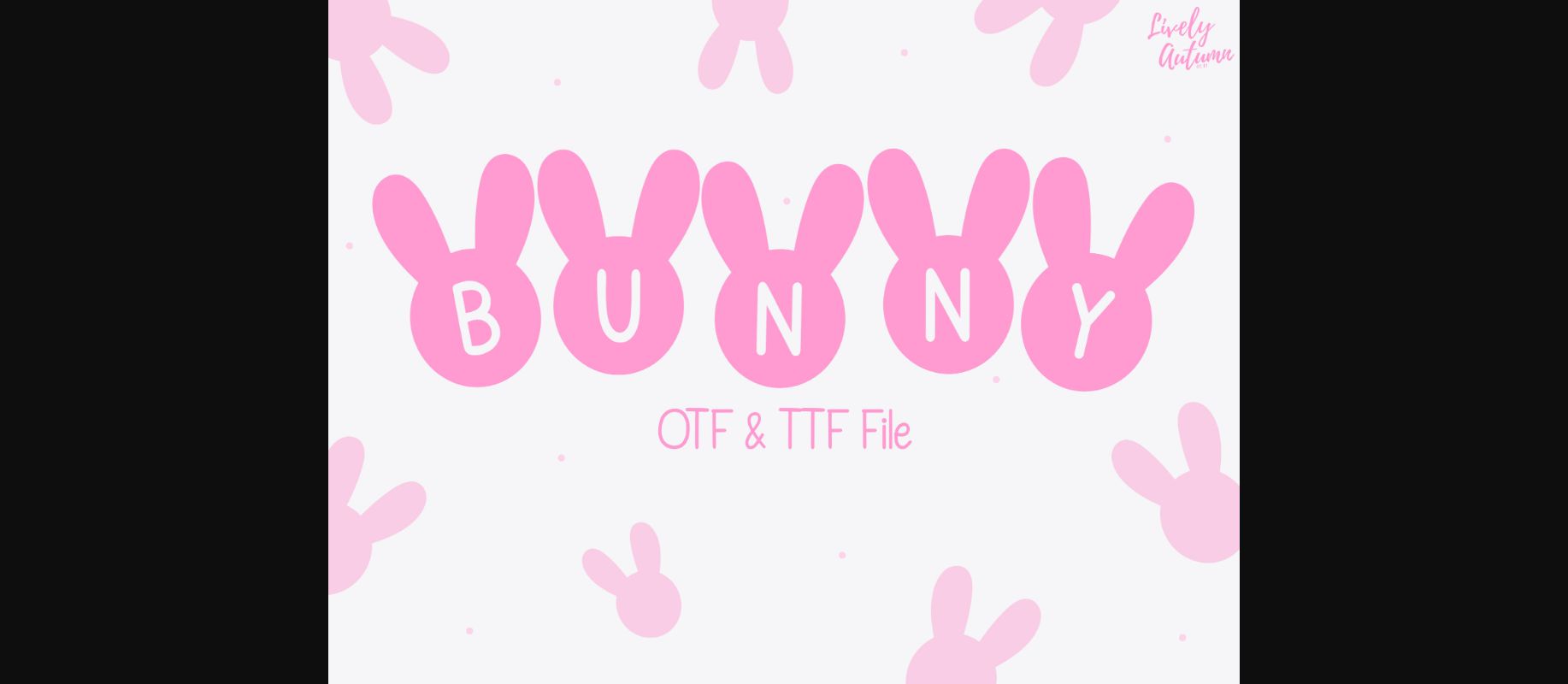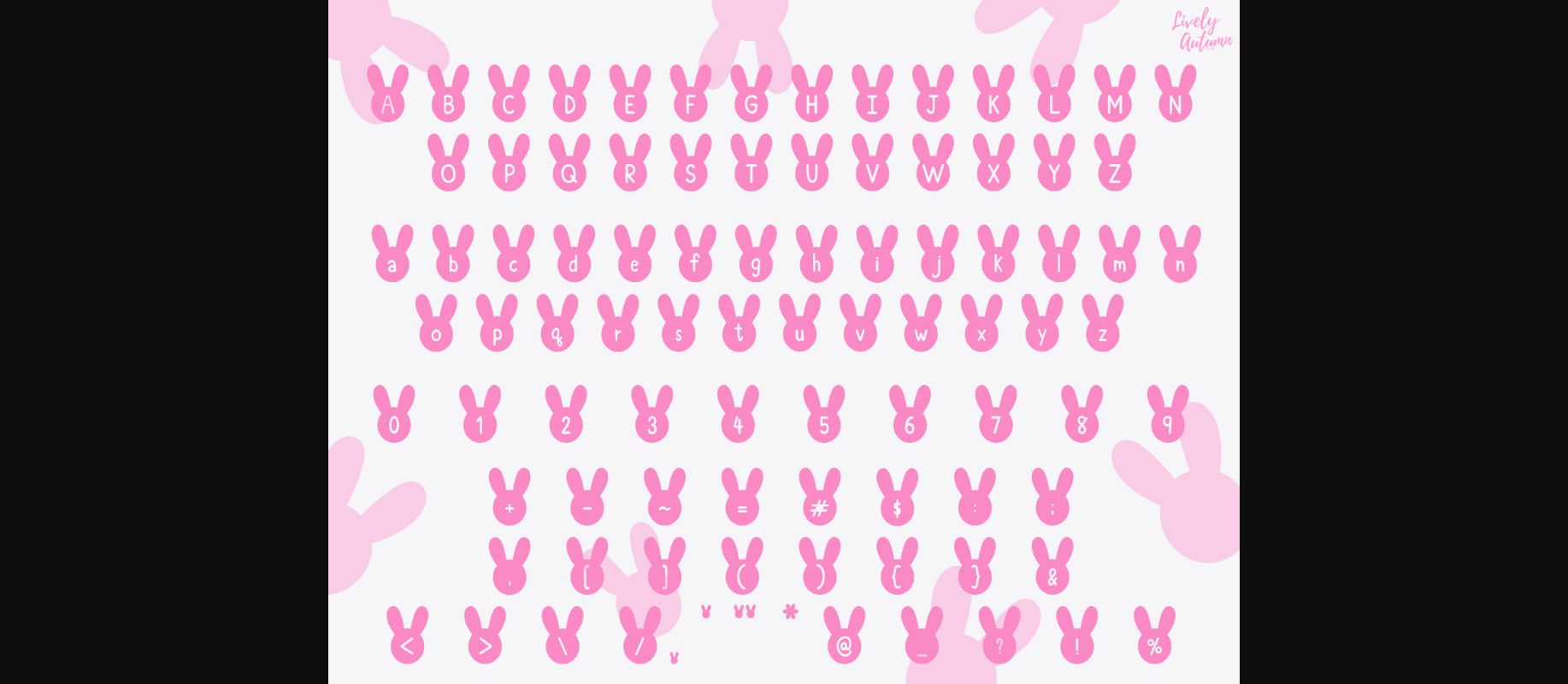
Bunny Font
About Bunny Font
Bunny Font is a fancy decorative font. Bunny Font is created with a bunny head shape. This font is perfect for your fun projects, Easter projects, personal projects, or kid-themed projects. From invitations to posters, social media graphics, and much more.